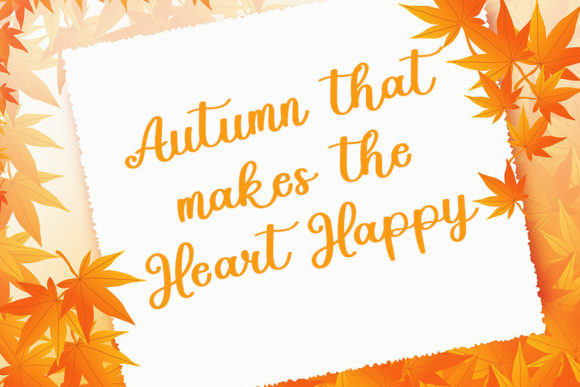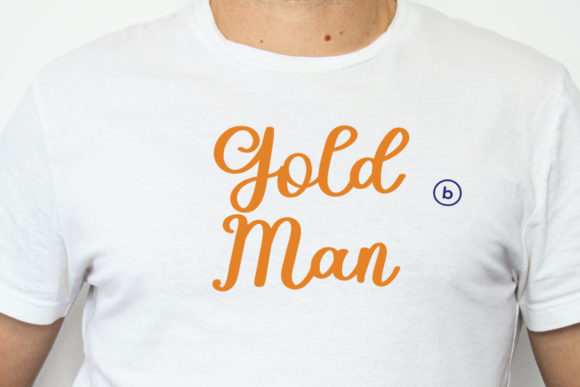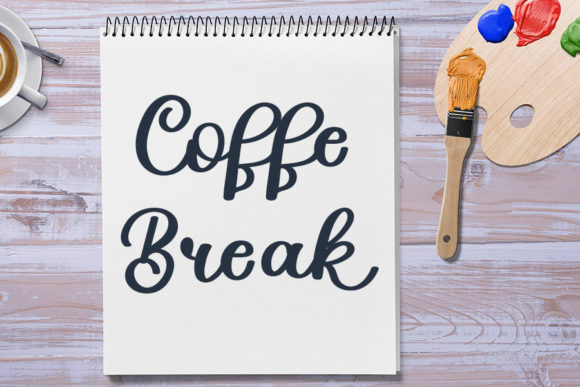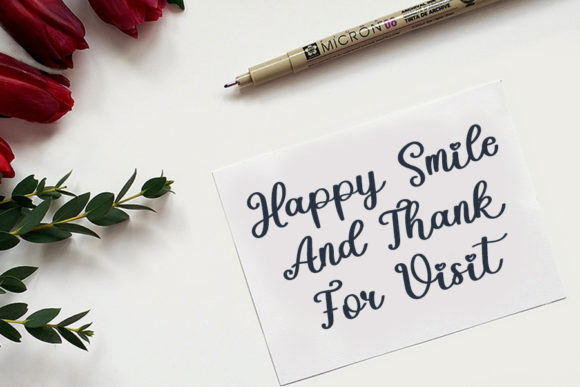
The Magical World of Butterfly Font
I’ll never forget the time I was working on a whimsical branding project for a children’s party planning service. I had all the elements in place – the color palette, the logo concept, and the overall aesthetic – but something was missing. As I scrolled through my font library, I stumbled upon Butterfly Font. Its charming, playful characters seemed to dance along the baseline, and I knew I had found the perfect fit. In this article, I’ll share my experience with Butterfly Font, its features, and how to make the most of it in your designs.
A Personal Review of Butterfly Font
• ✨ Playful and charming characters that add a touch of whimsy to any design
• ✅ Excellent for creative projects, such as branding, packaging, and invitations
• 💫 Beautiful swashes and ligatures that enhance the overall aesthetic
• 🌈 Wide range of color options to match your brand’s color palette
While Butterfly Font is an amazing addition to any design project, there are a few things to keep in mind:
• 🤔 Some characters may require manual kerning for optimal spacing
• ⚠️ Not suitable for body text due to its script nature
Butterfly Font was designed by a team of creatives who wanted to capture the essence of playfulness and joy. Inspired by the beauty of butterflies and the world of nature, they crafted a font that would bring a smile to anyone’s face. With its charming characters and elegant swashes, Butterfly Font has become a favorite among designers and crafters.
Q: What type of projects is Butterfly Font best suited for?
A: Butterfly Font is perfect for creative projects, such as branding, packaging, invitations, and party decorations.